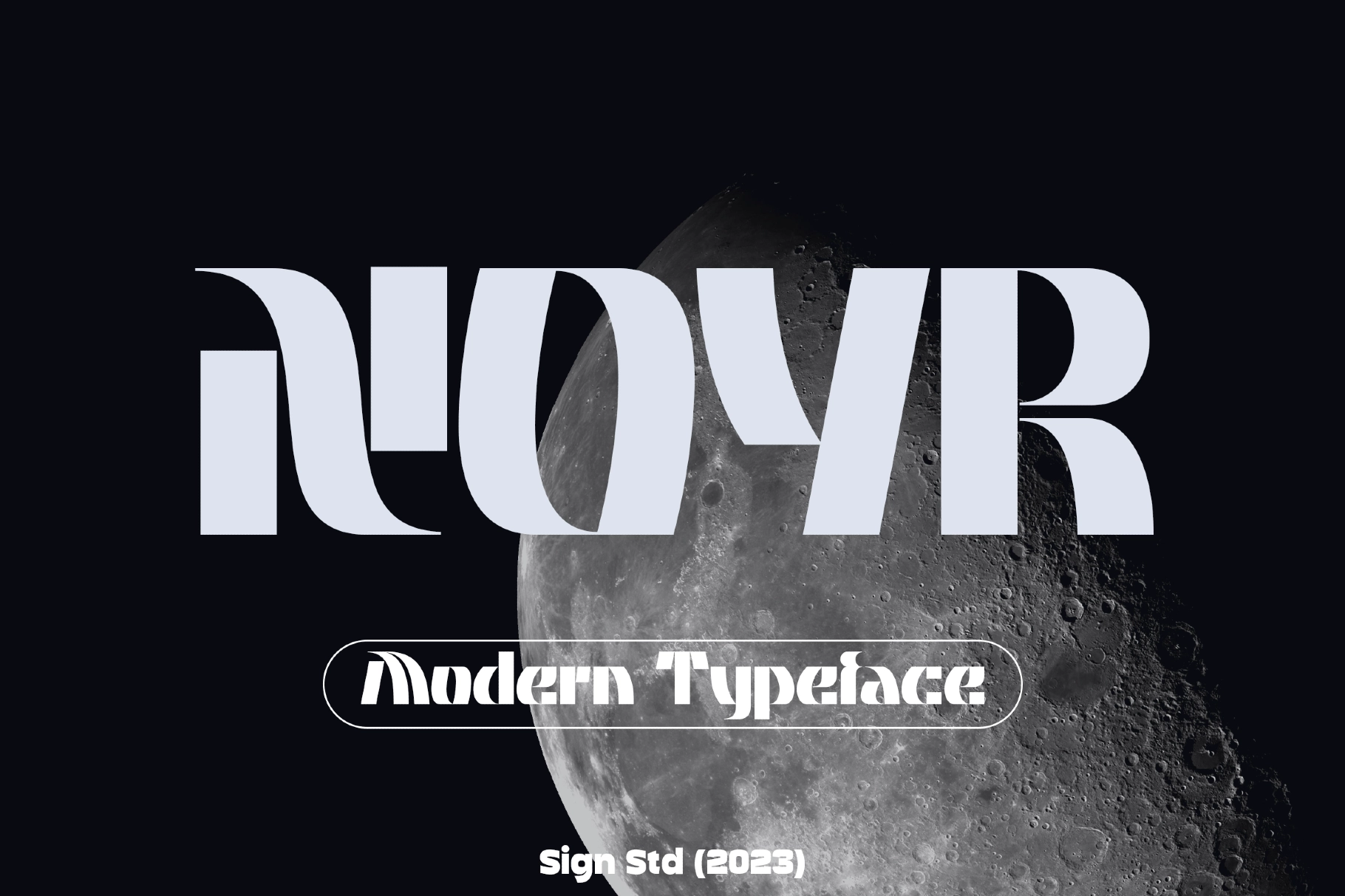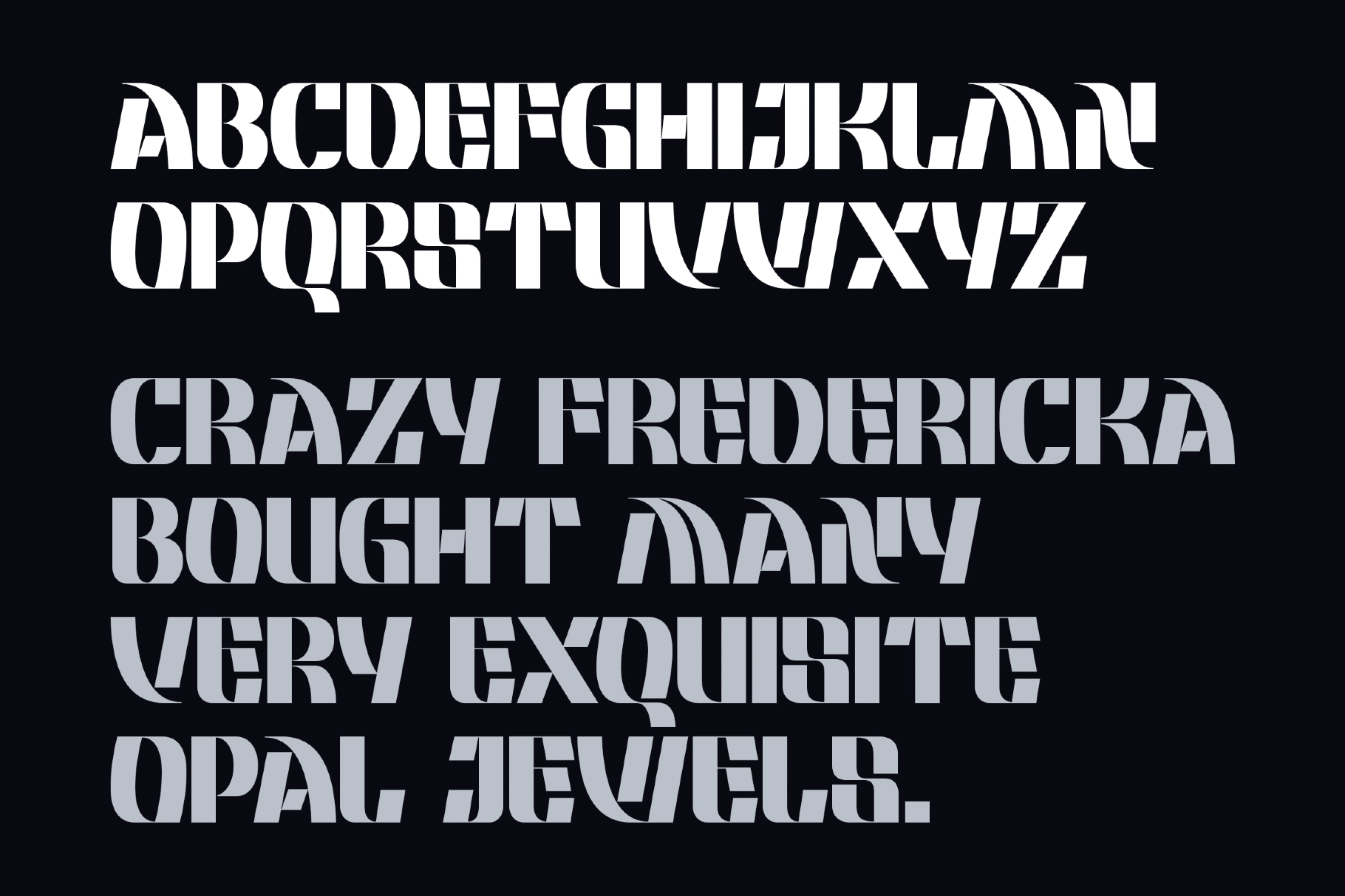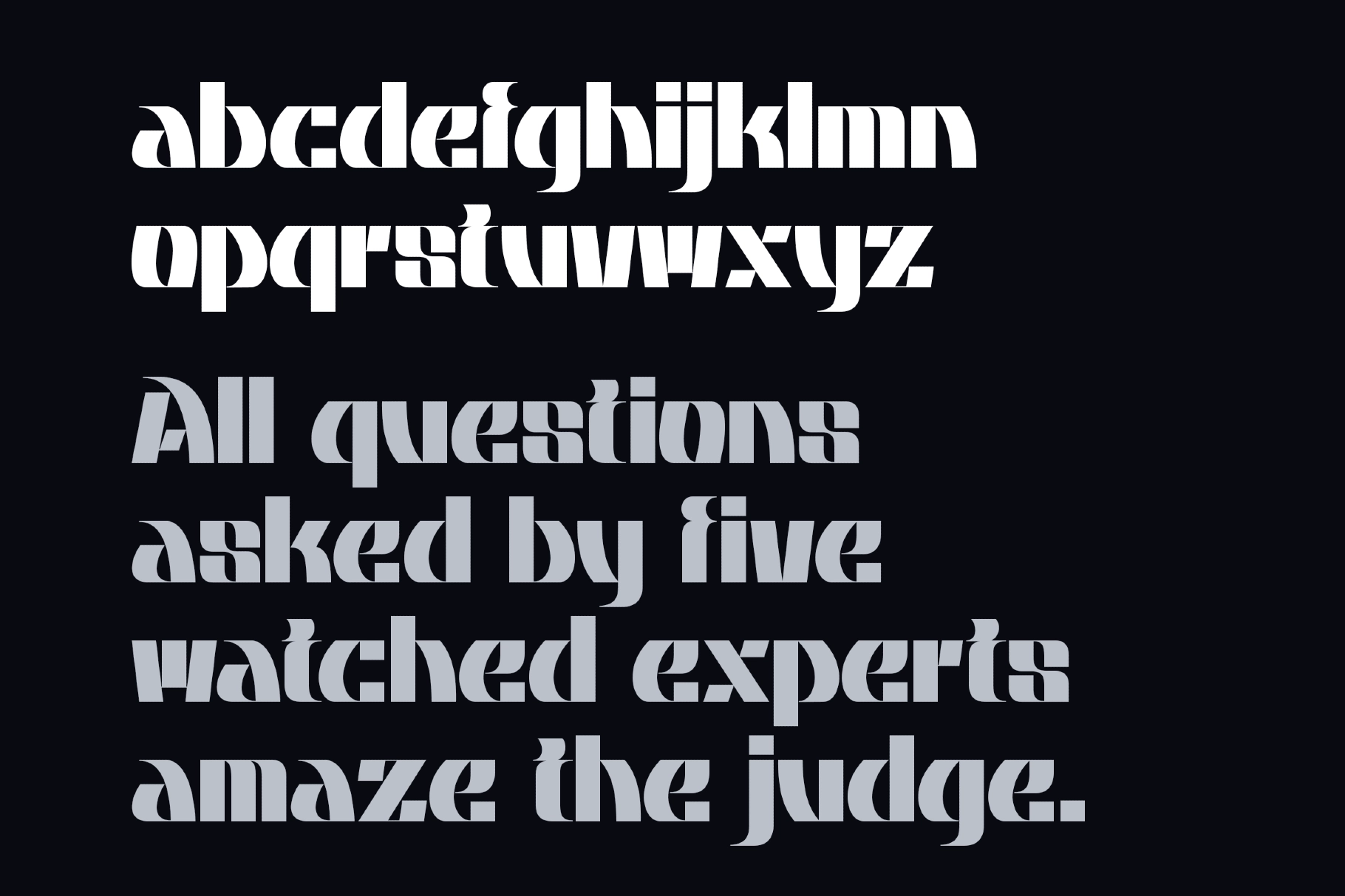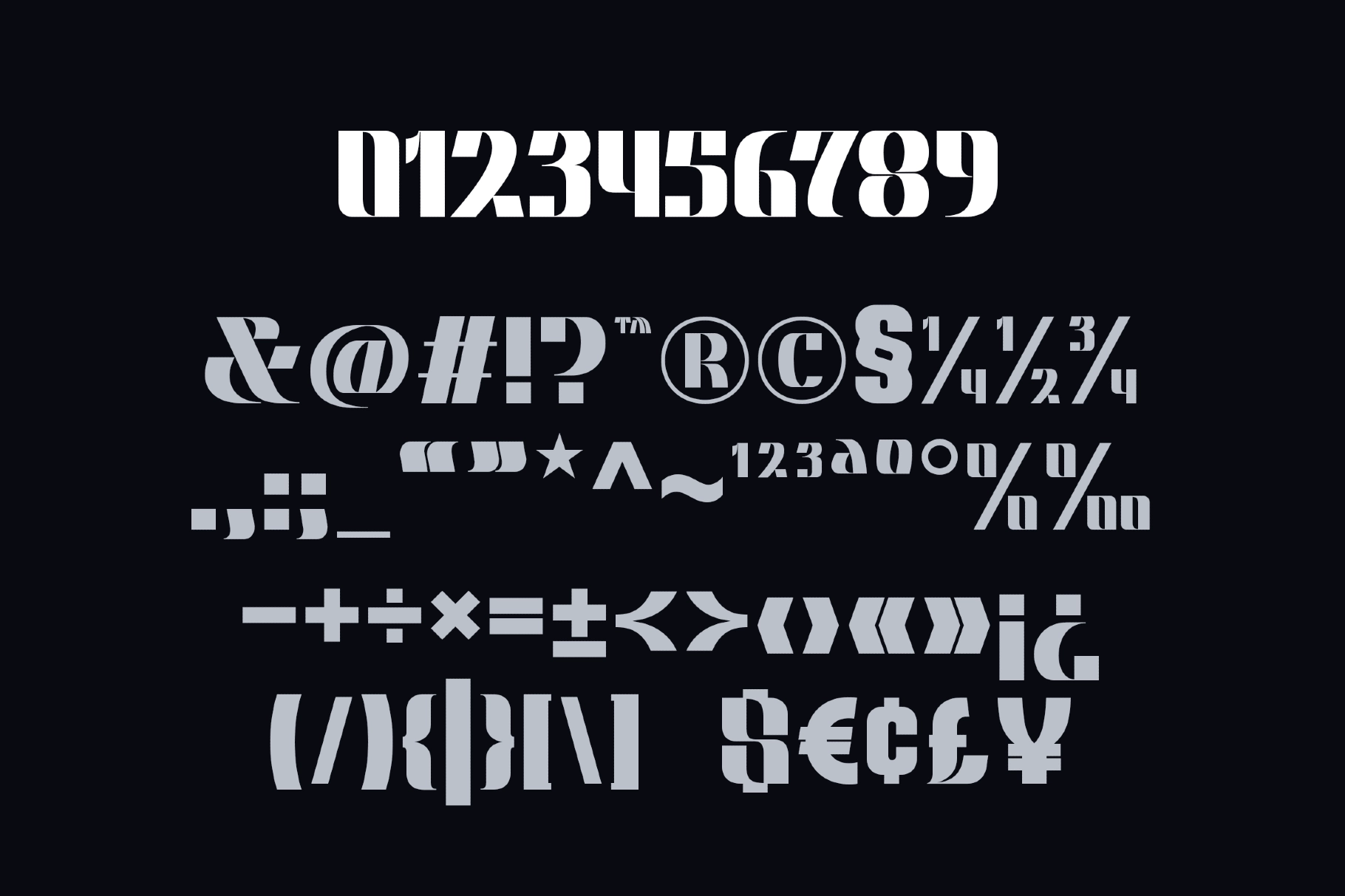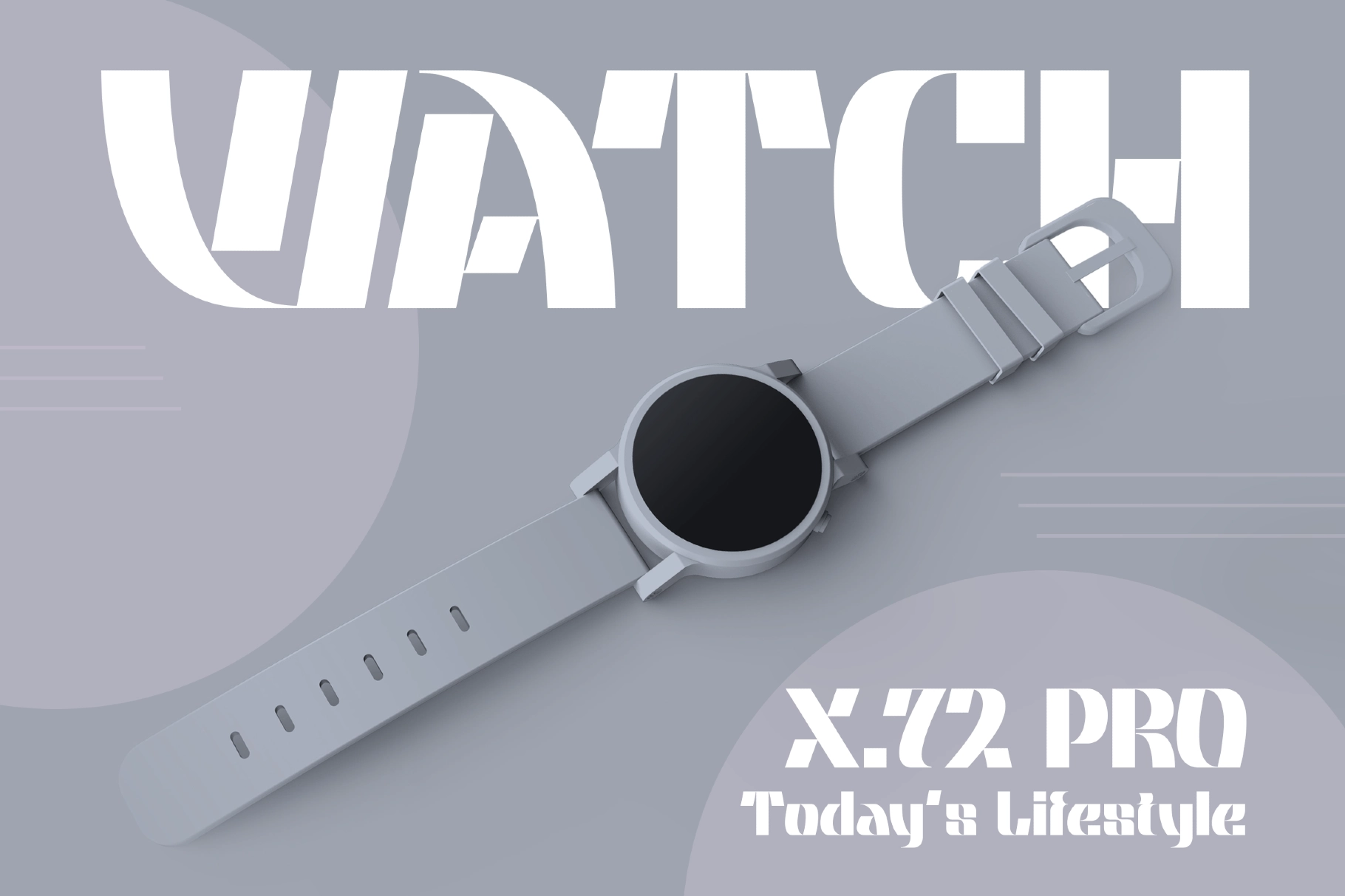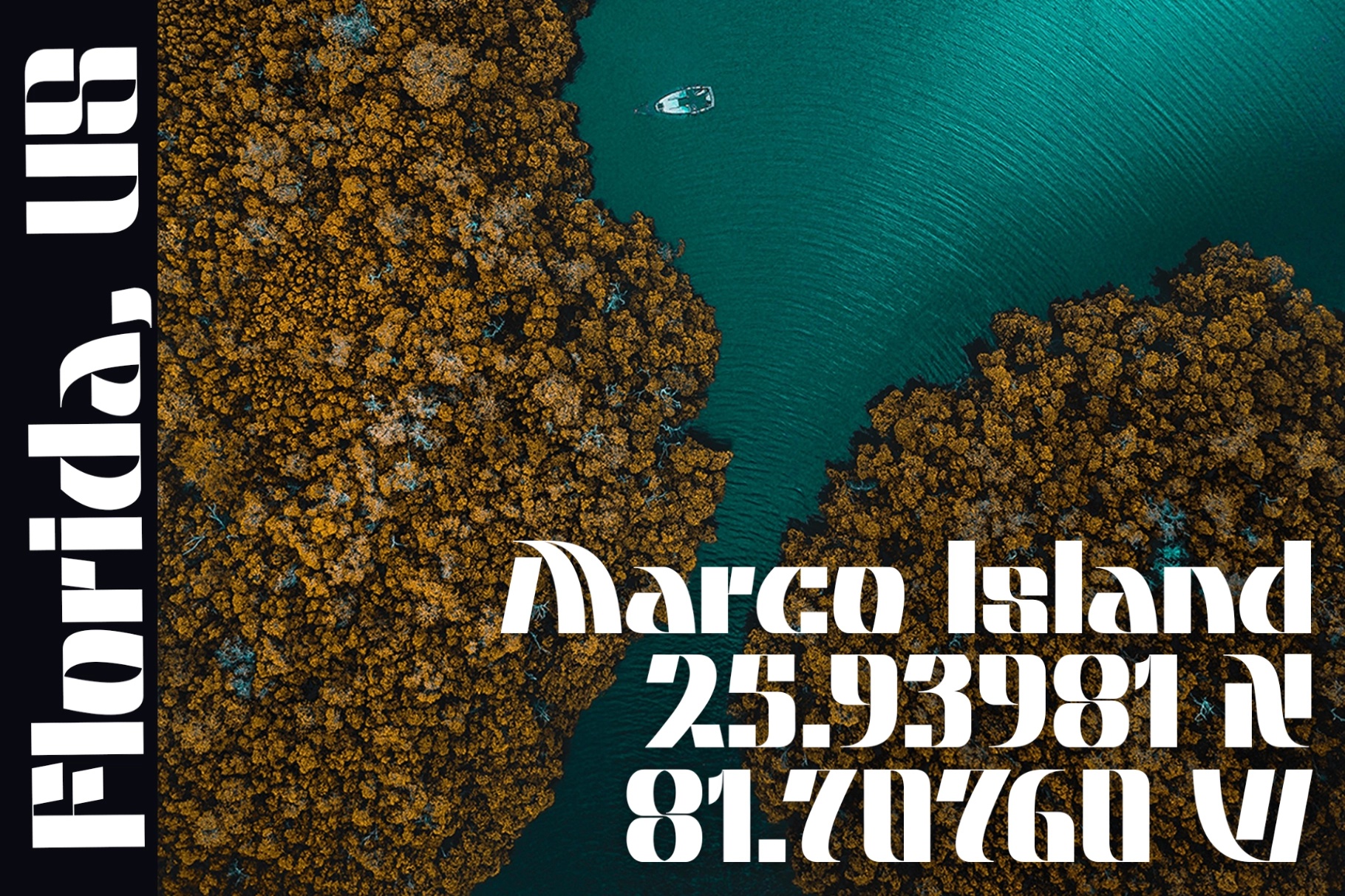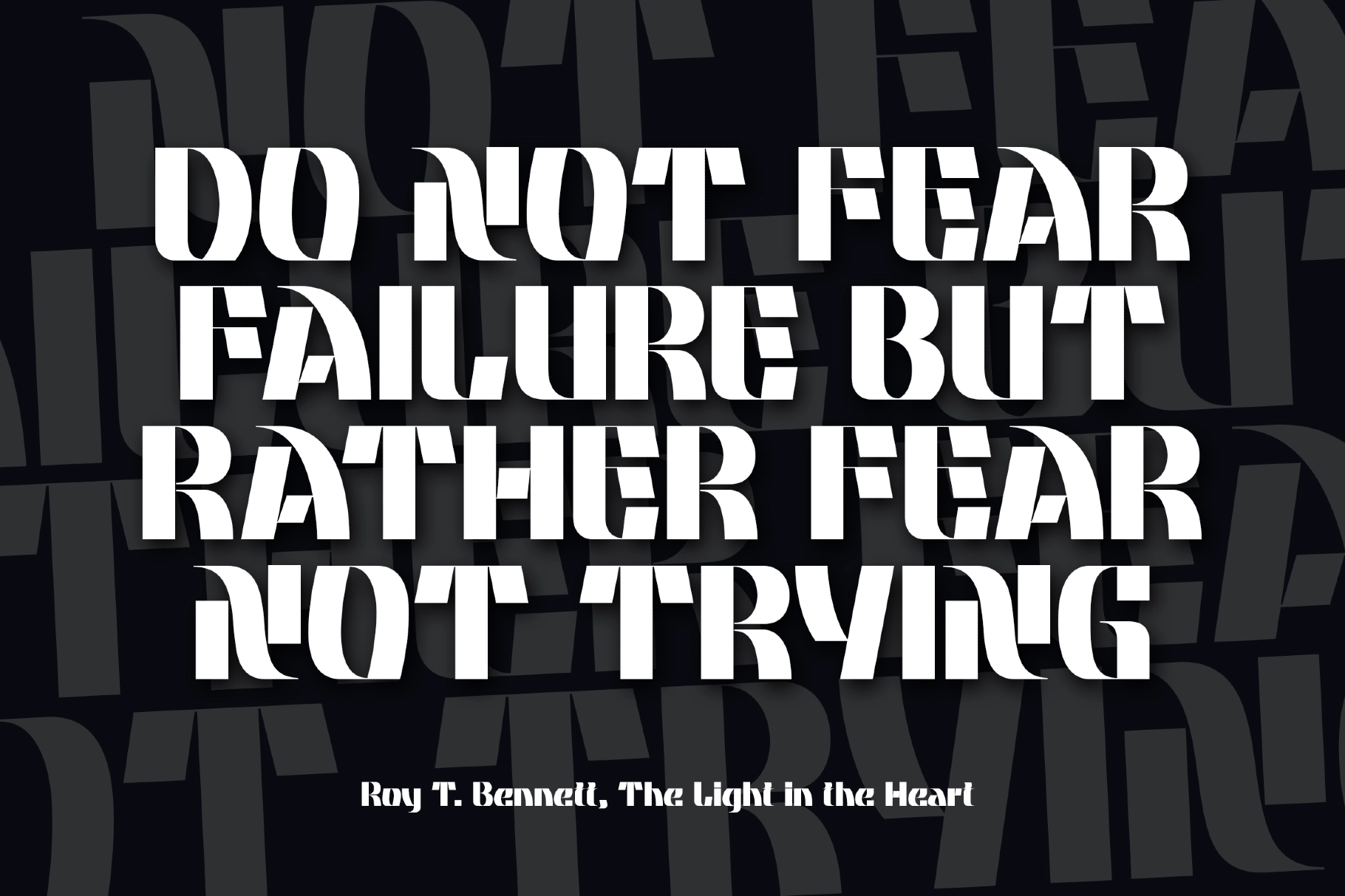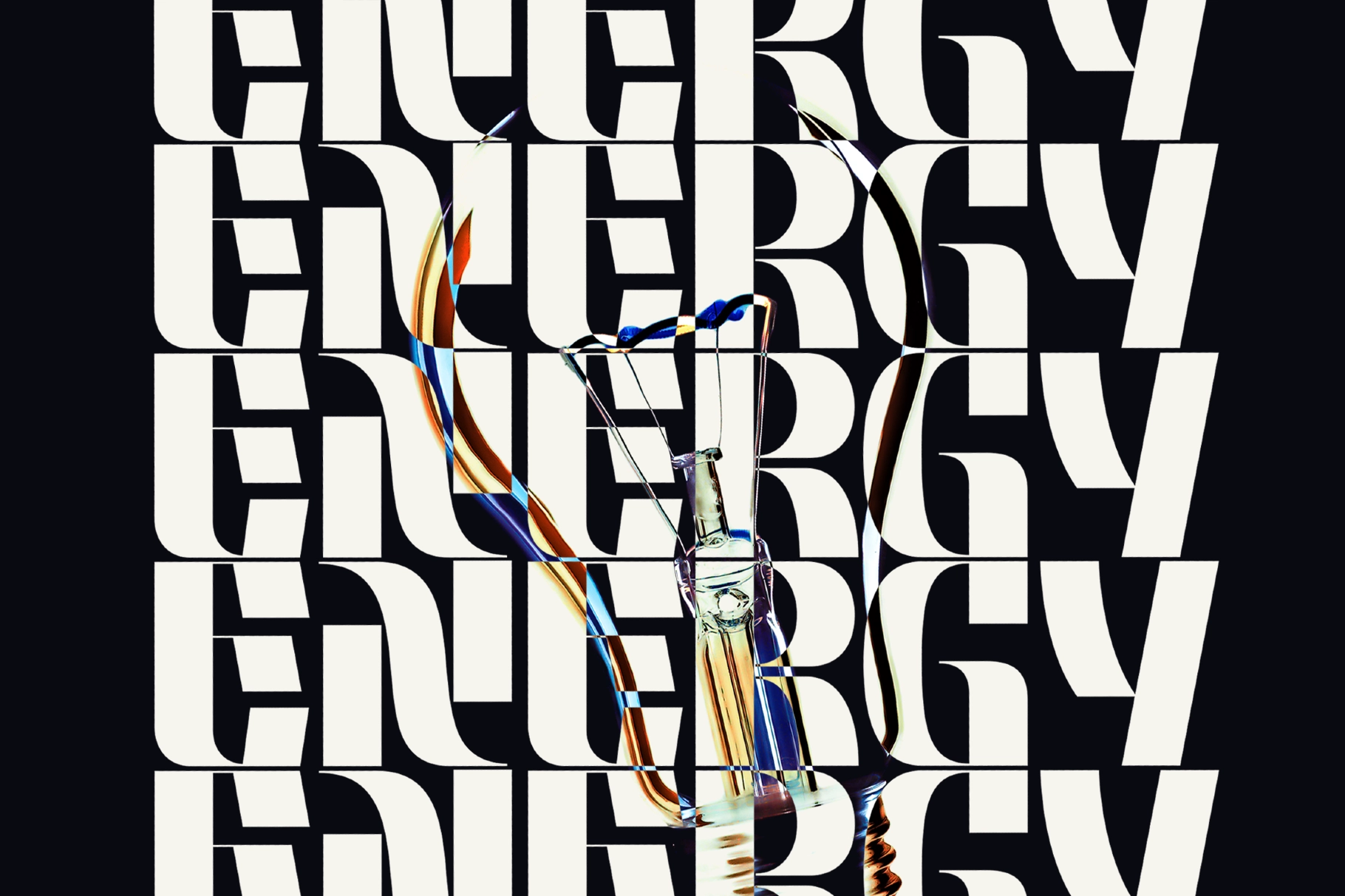
Noyr - Modern Bold Display Typeface
Noyr
Noyr - Modern Bold Display Typeface is a striking display font that blends sharp geometry with expressive curves, creating a distinctive and fashion-forward visual identity. Its sculptural letterforms and high-contrast cuts give every word a sense of movement and attitude, making it ideal for bold headlines, editorial layouts, and standout branding.
With its unique balance between modern minimalism and artistic flair, this typeface works perfectly across creative industries—from fashion campaigns and magazine covers to experimental posters and digital visuals. Noyr delivers strong personality while remaining highly usable, helping designers craft memorable compositions with a contemporary edge.